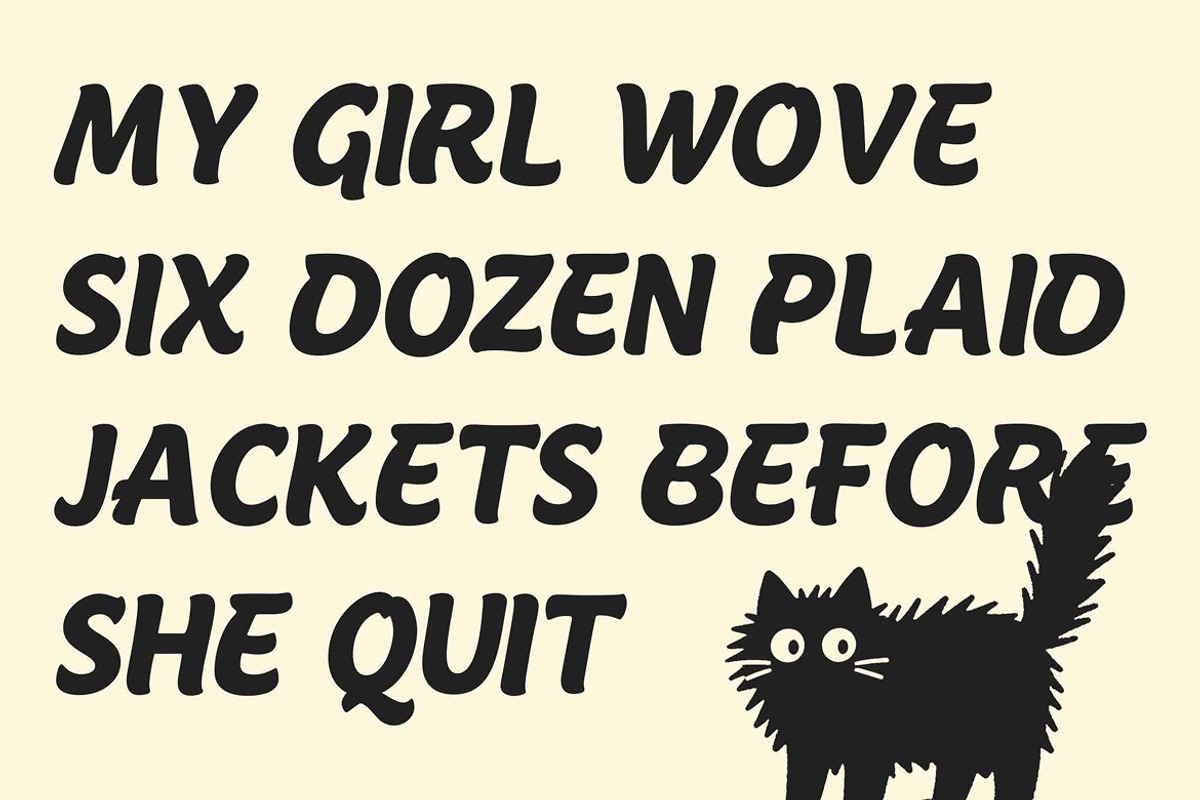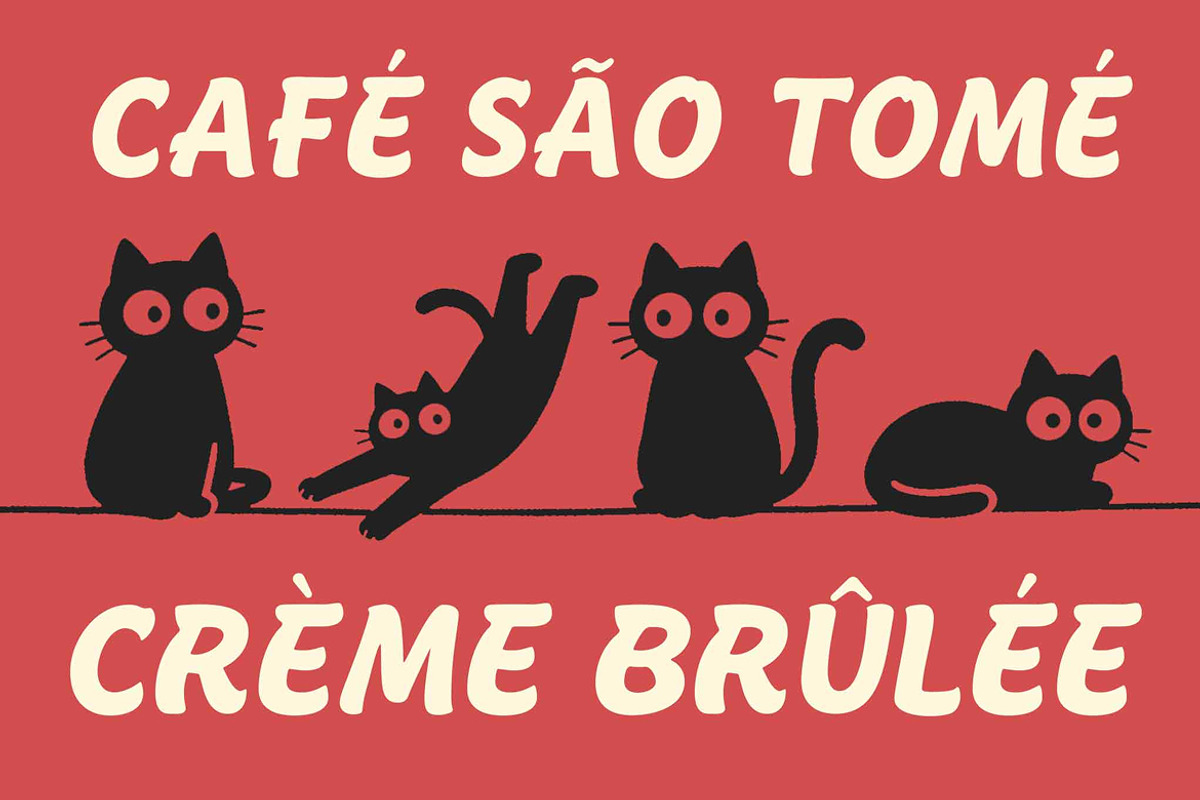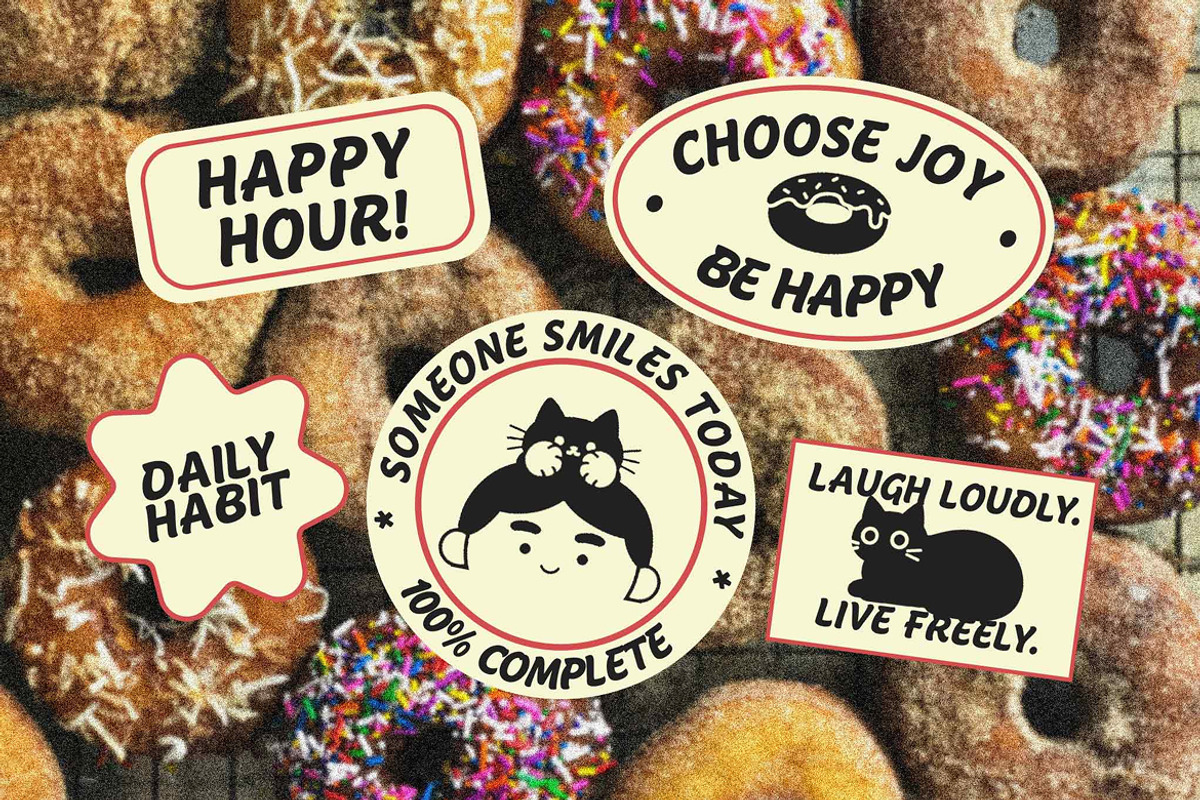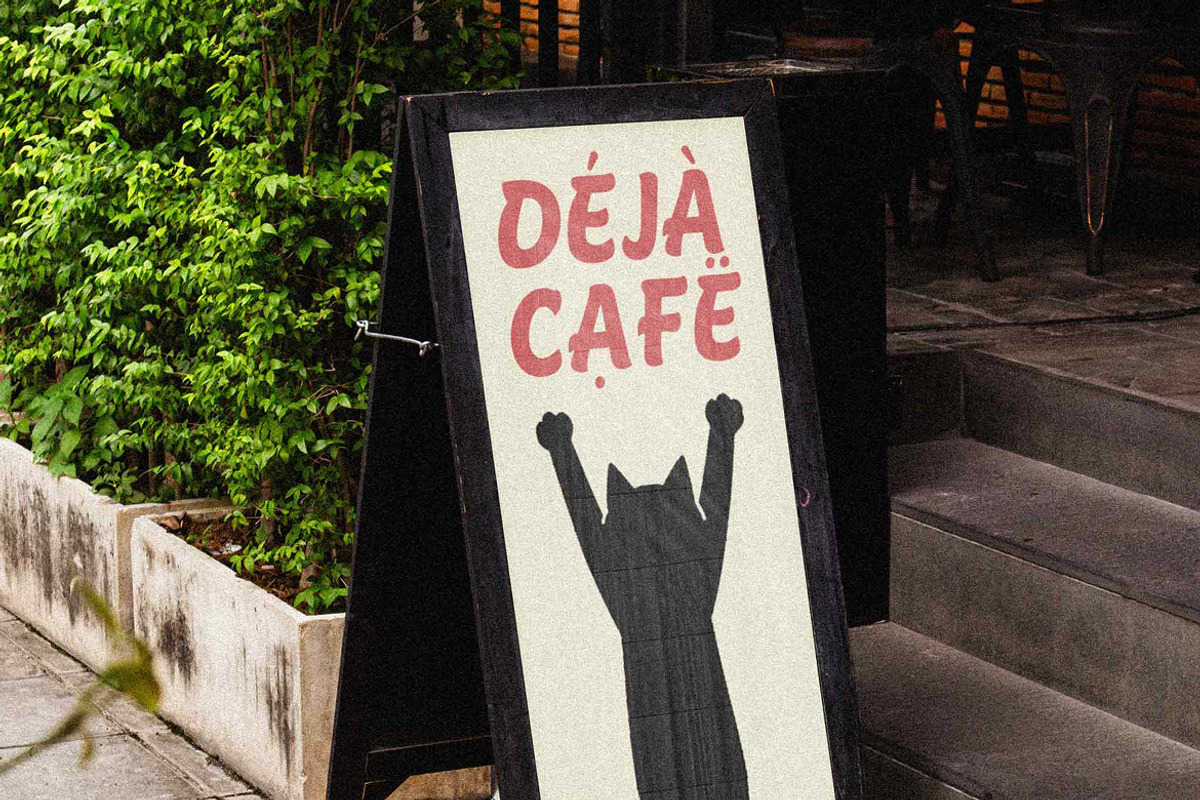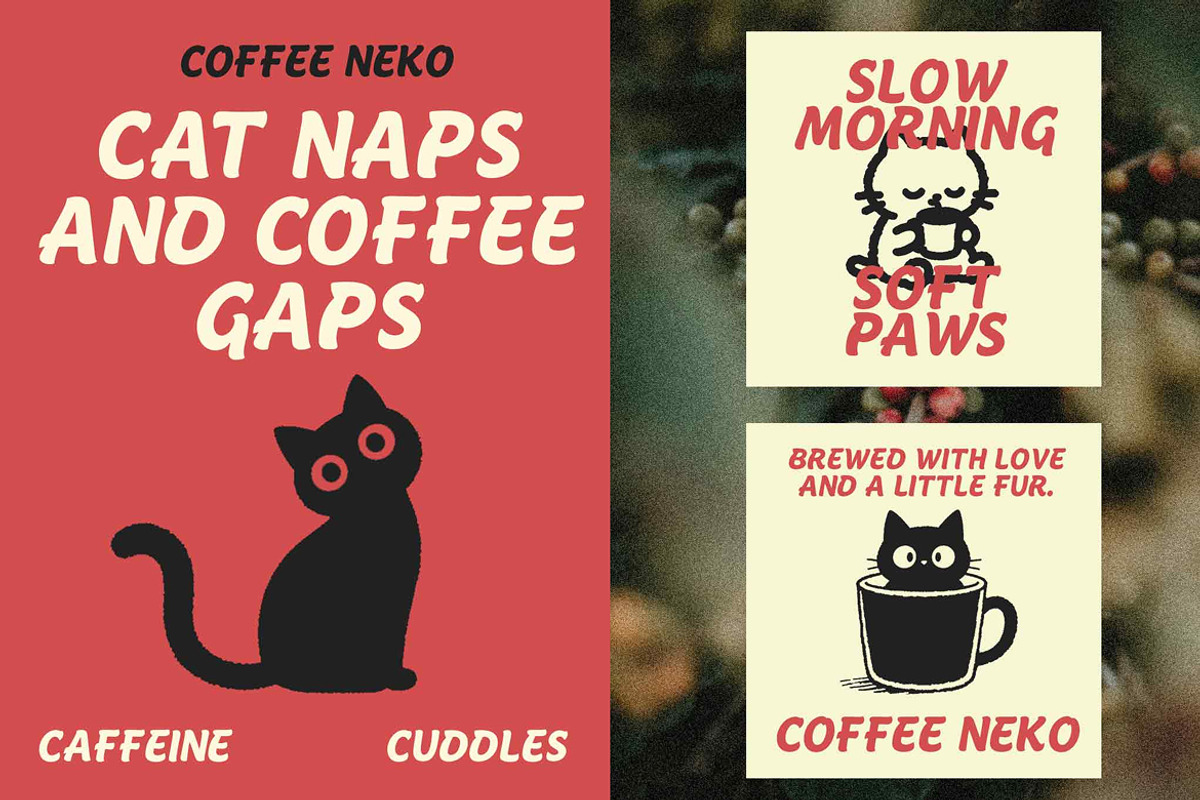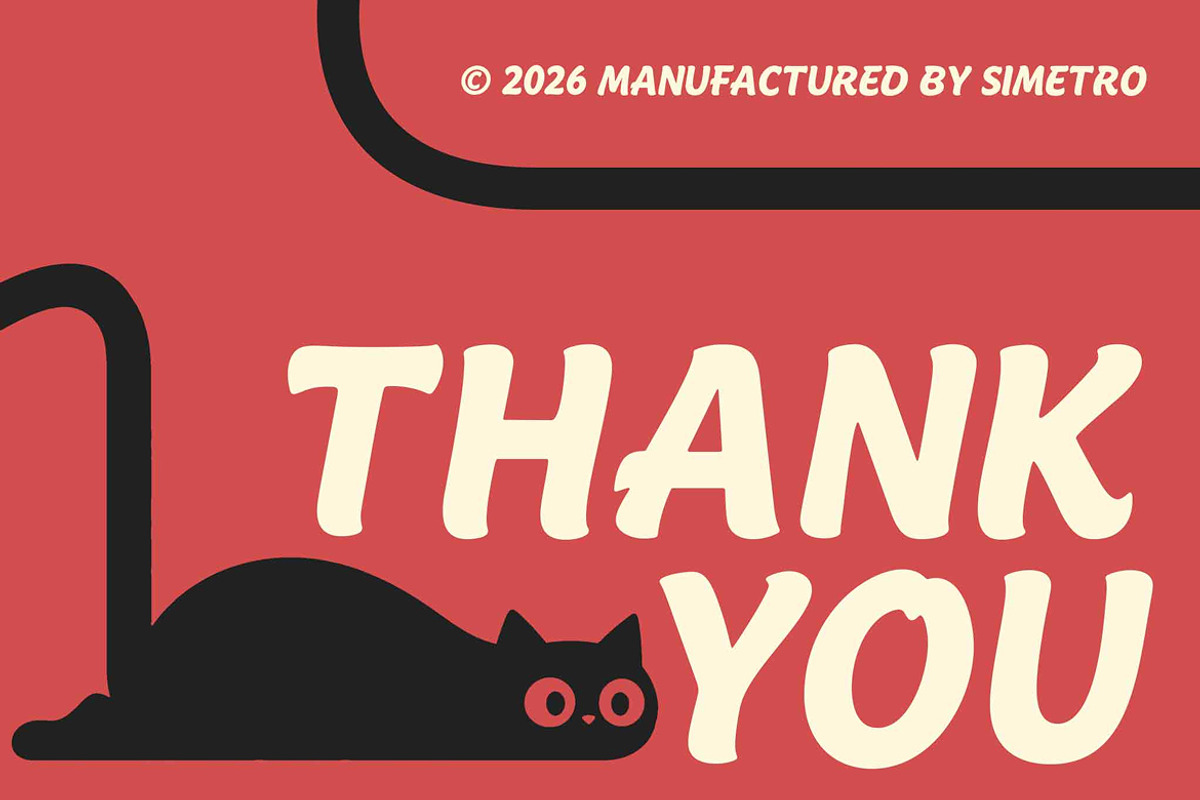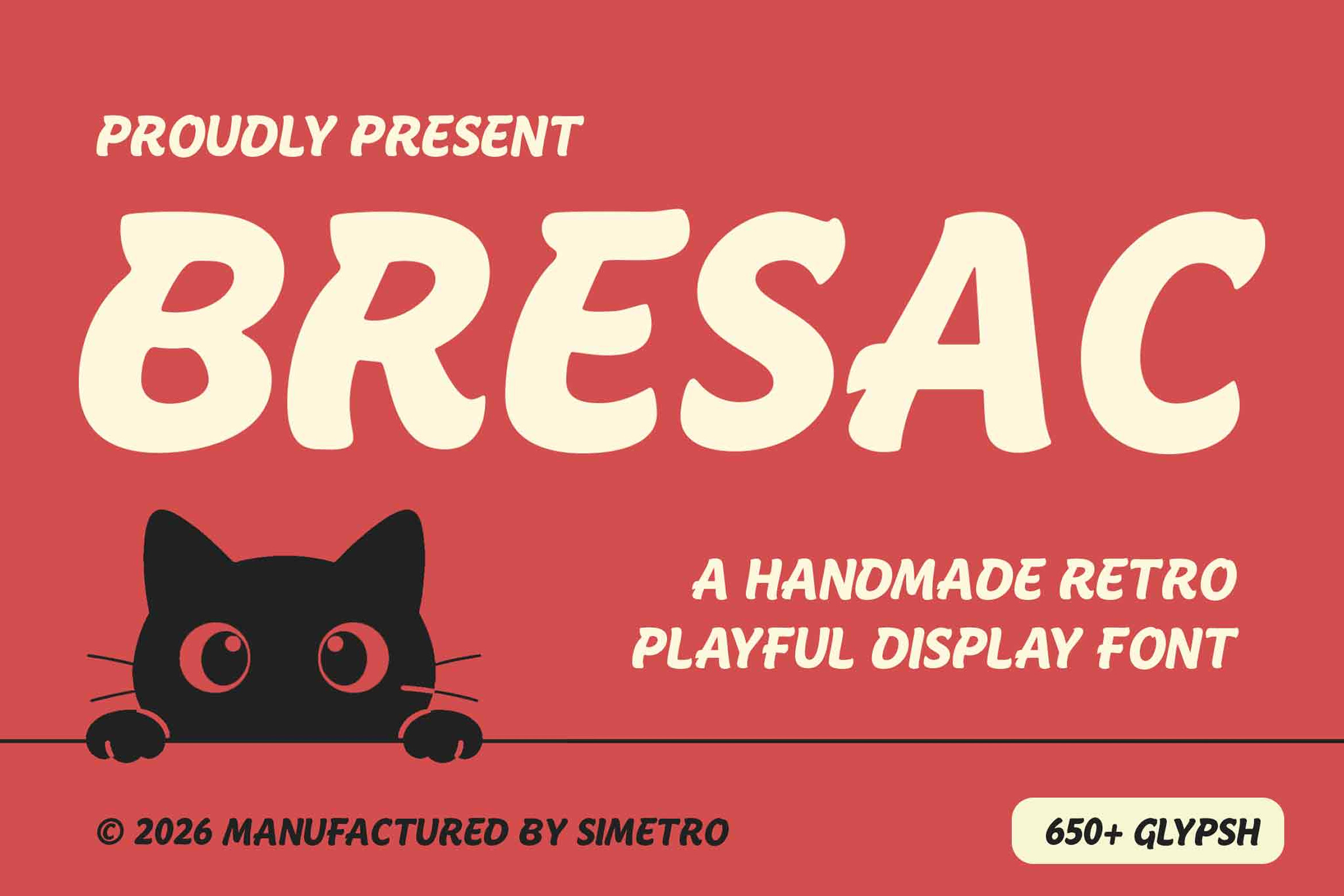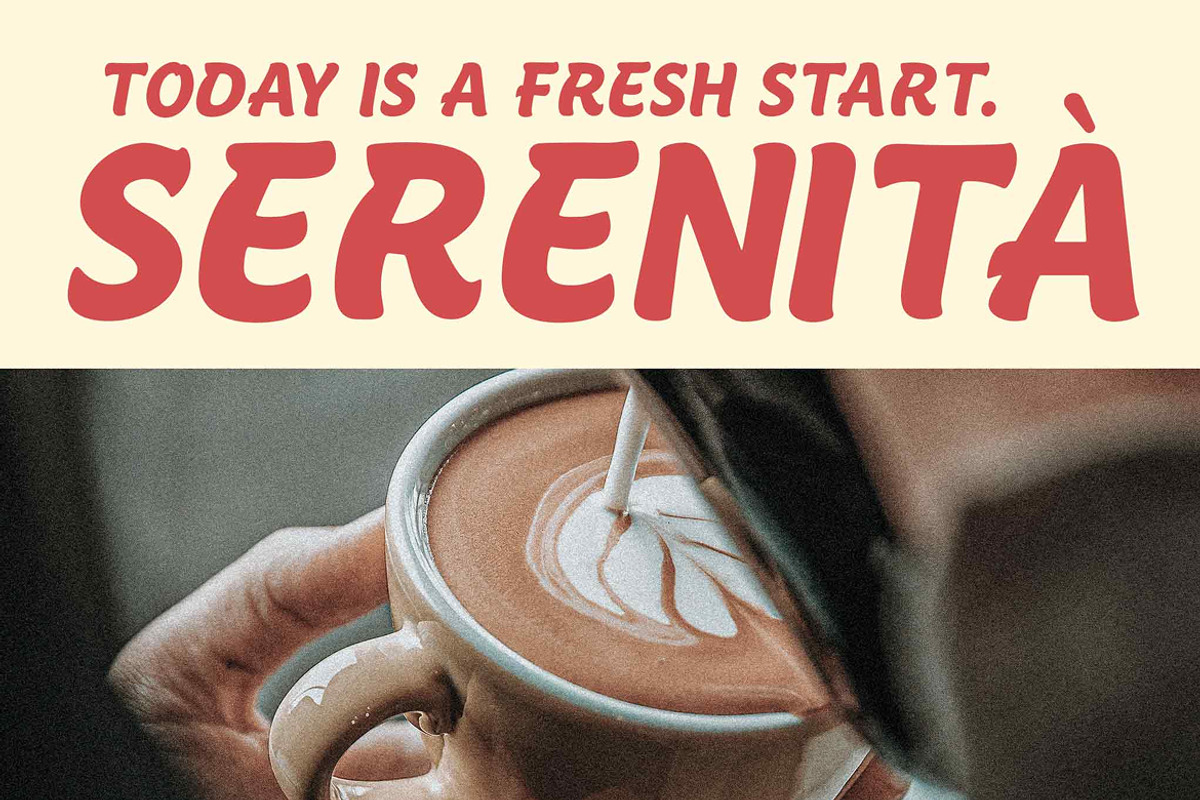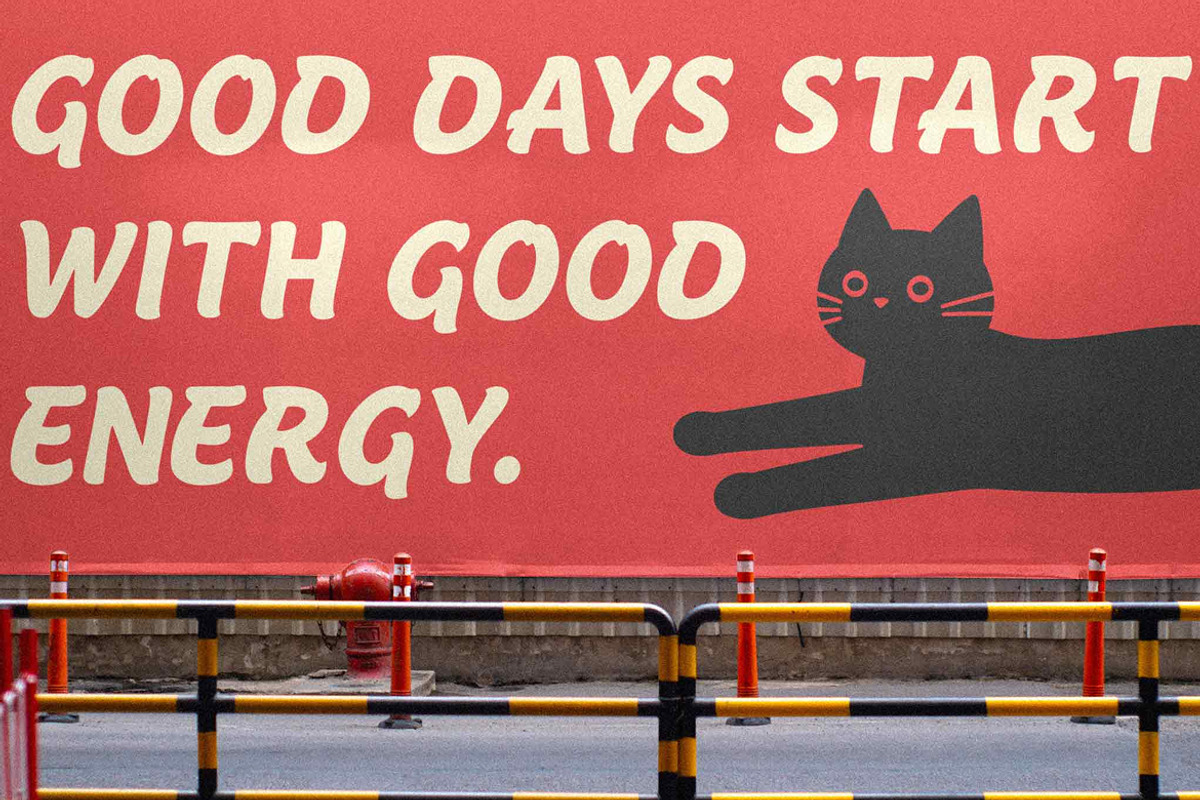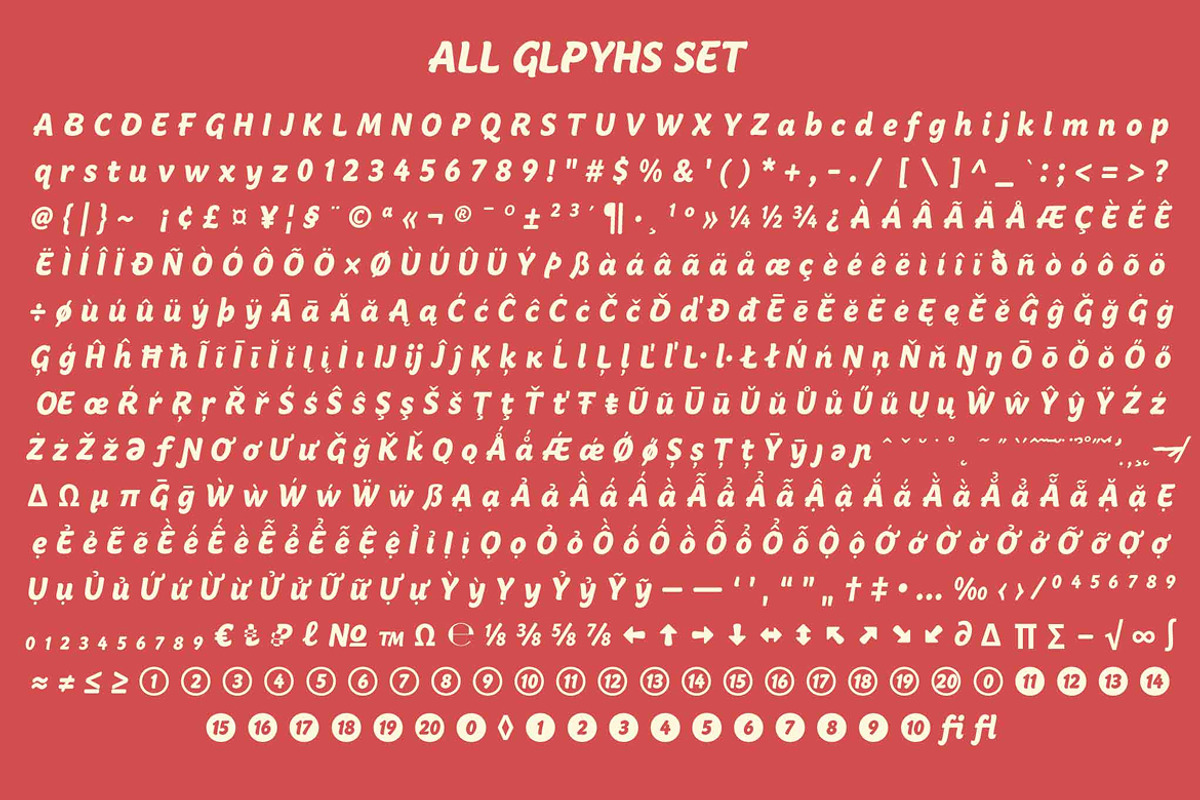
Bresac - Retro Playful Font Display
Bresac, a handmade retro playful display font inspired by classic vintage lettering and cheerful mid century design aesthetics. Designed with bold, soft rounded curves and a friendly personality, Bresac delivers strong visual impact while staying fun, warm, and easy to read.
This font works perfectly for projects that need an eye catching retro look, such as logo designs, posters, café branding, sticker designs, social media graphics, labels, headlines, and any creative typography layout. Its smooth, chunky forms give your text a nostalgic yet modern feel ideal for both digital and print use.
Bresac includes a rich set of glyphs with uppercase, lowercase, numbers, punctuation, and multilingual support, giving you flexibility to build unique and expressive typographic compositions.
If you’re looking for a font that feels vintage, handmade, bold, and playful, Bresac is ready to bring charm and personality to your next design.